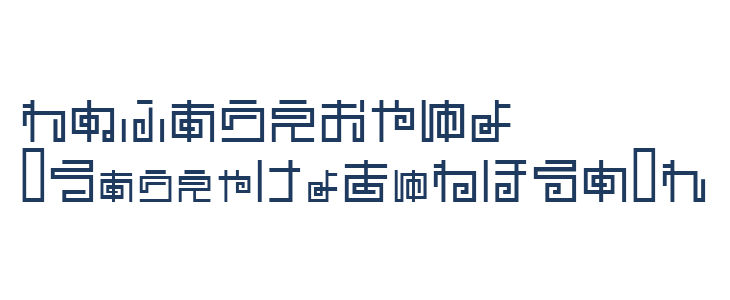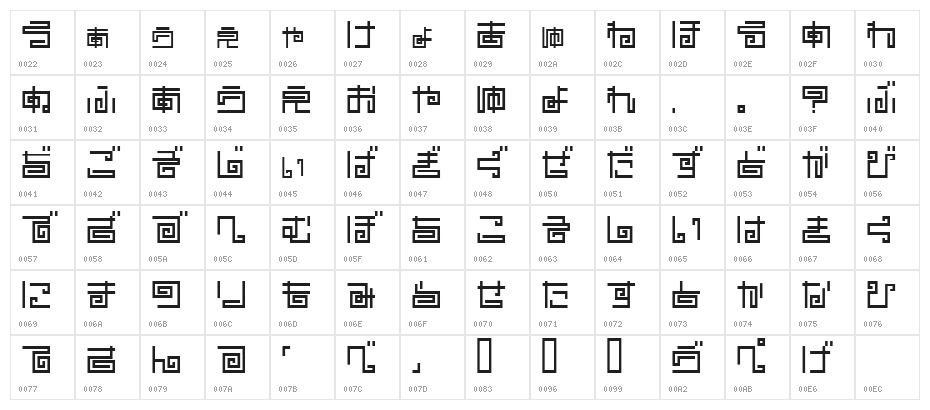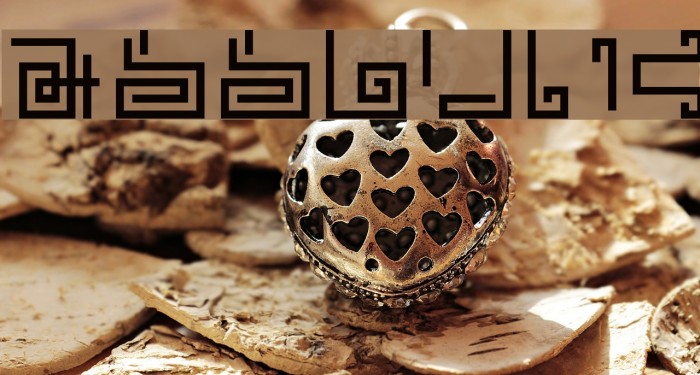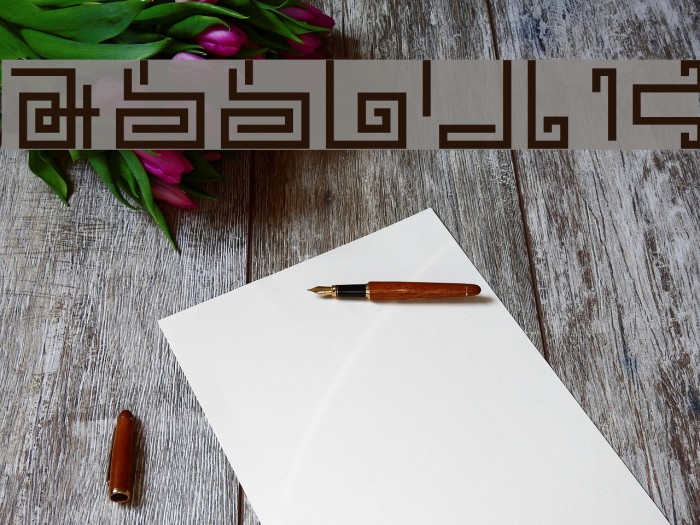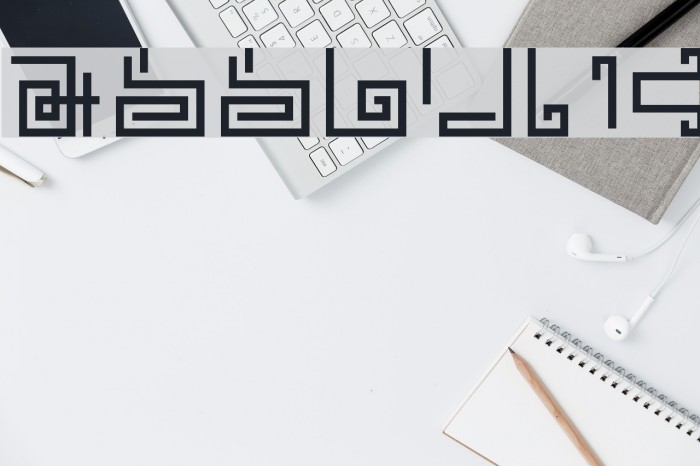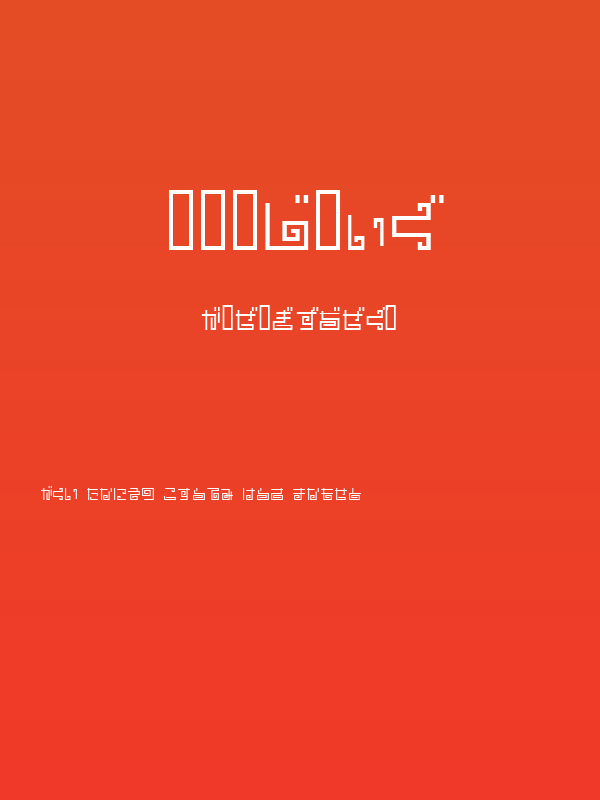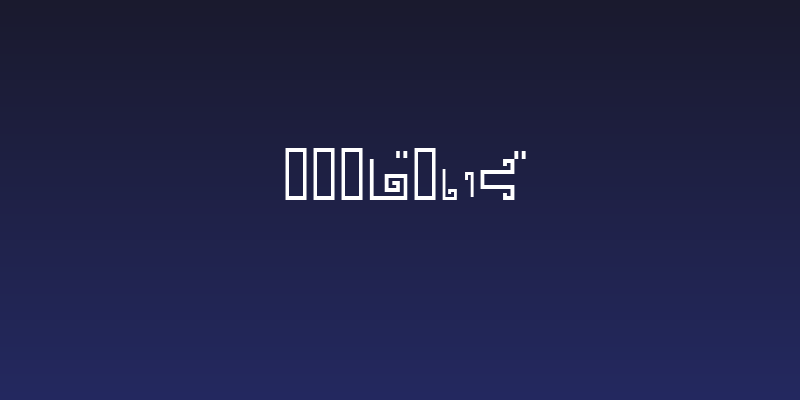
noodleh Font
noodleh Description
This font features a unique, geometric design with a pixelated, block-like appearance. Each character is constructed with straight lines and right angles, giving it a digital, futuristic feel. The uniformity and symmetry in the characters create a cohesive and structured look. The font's style is reminiscent of early computer graphics or retro video game aesthetics, making it stand out with its distinctive, tech-inspired appearance. The characters are evenly spaced, and the overall design maintains a consistent weight and width throughout. This font is ideal for projects that aim to evoke a sense of nostalgia or a digital, modern theme.
| Overall Style | Modern, Retro, Digital |
| Proposed Projects | Ideal for video game graphics, tech-themed posters, digital art projects, and retro-style branding. |